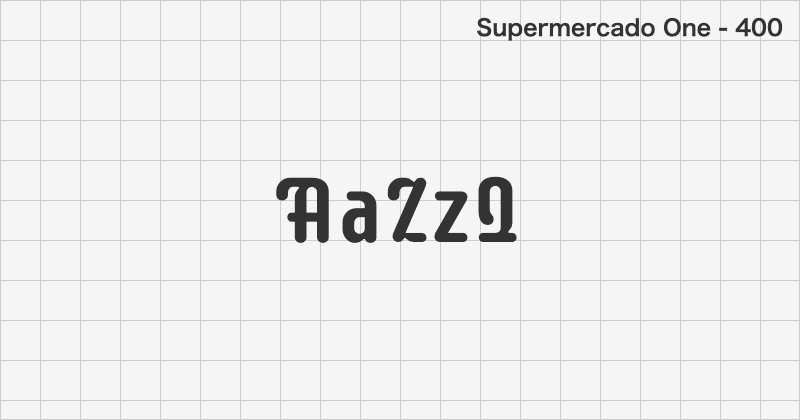
Supermercado One – Display Fonts Free for Commercial Use
Supermercado One is a semi-geometric typeface that incorporates unexpected swashes, offering a distinctive look while maintaining versatility across various text sizes. Its design is inspired by naive industrial lettering.
Supermercado One was designed by James Grieshaber with the intent to create a unique yet functional typeface. The focus was on blending playful elements with practicality for diverse typographic needs.